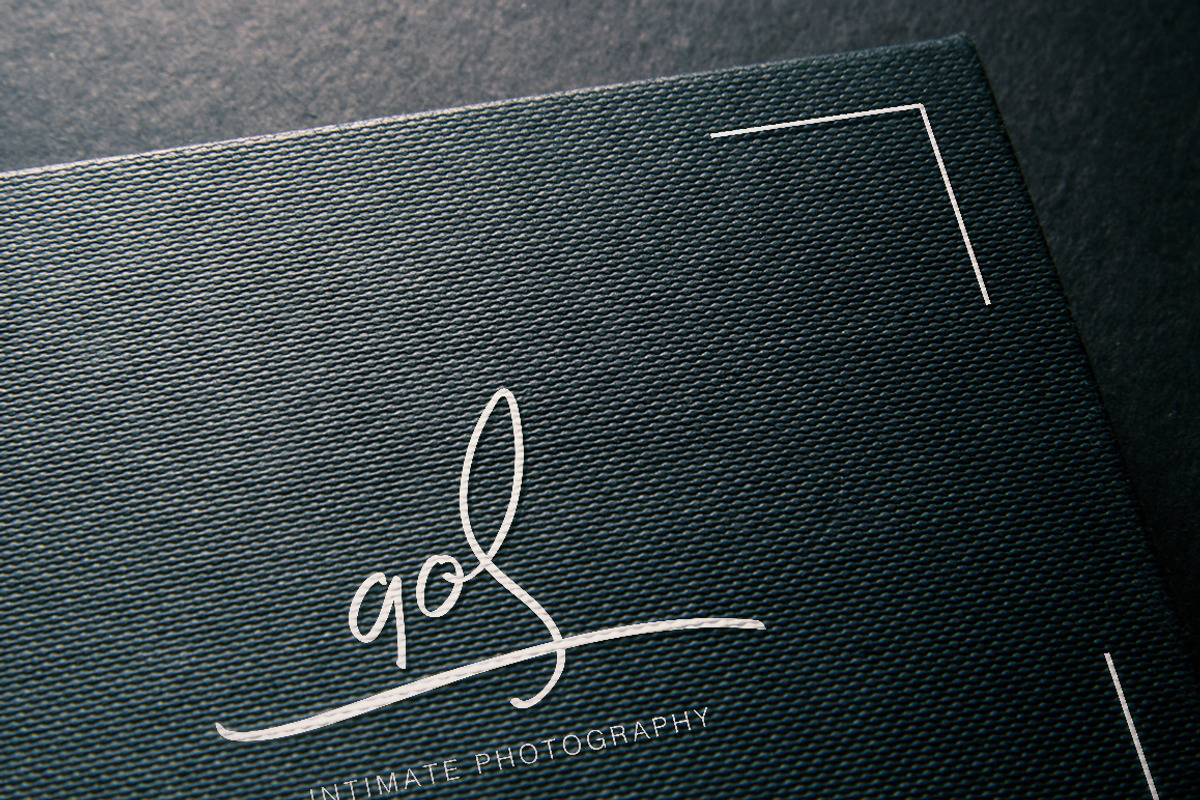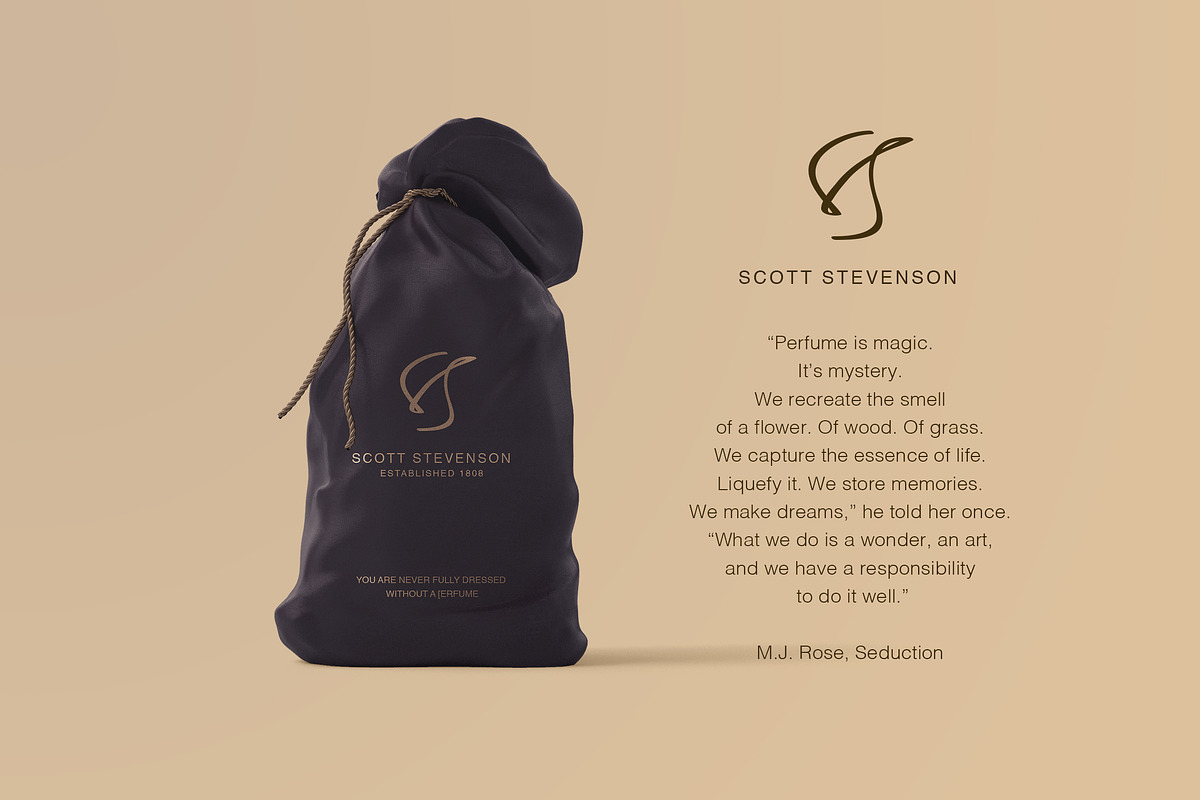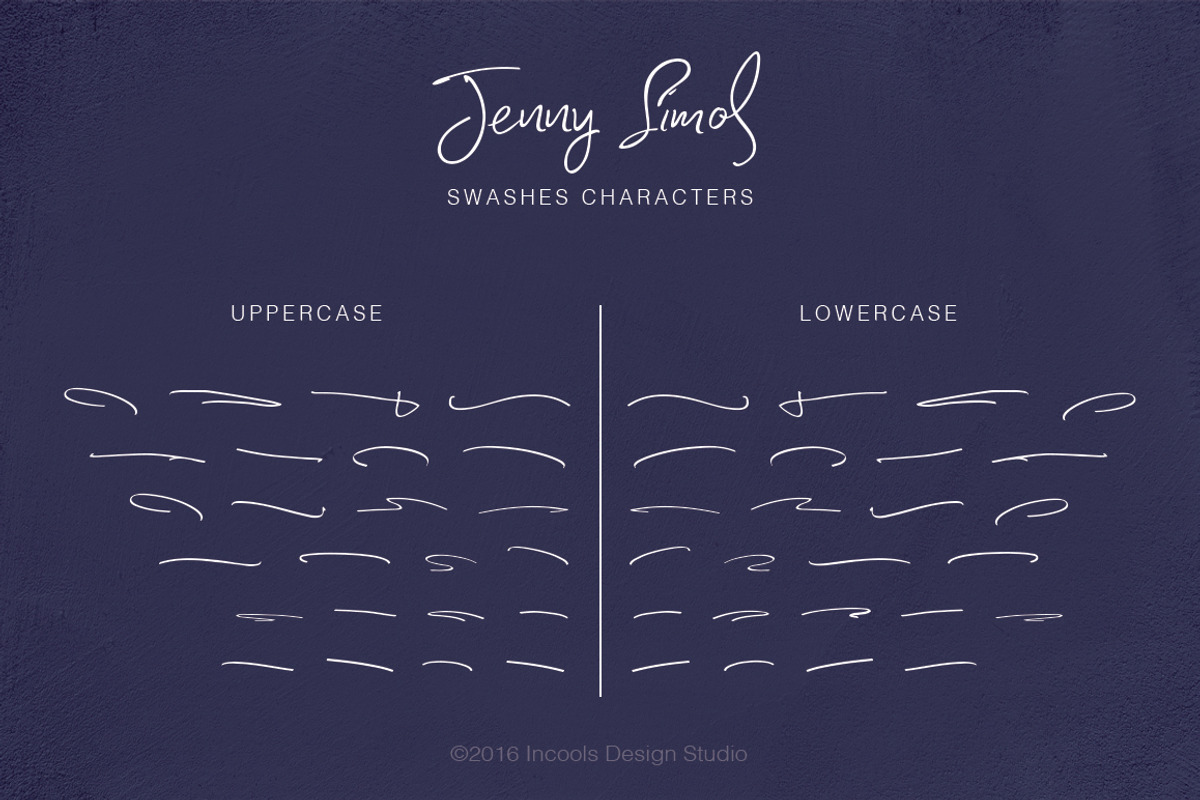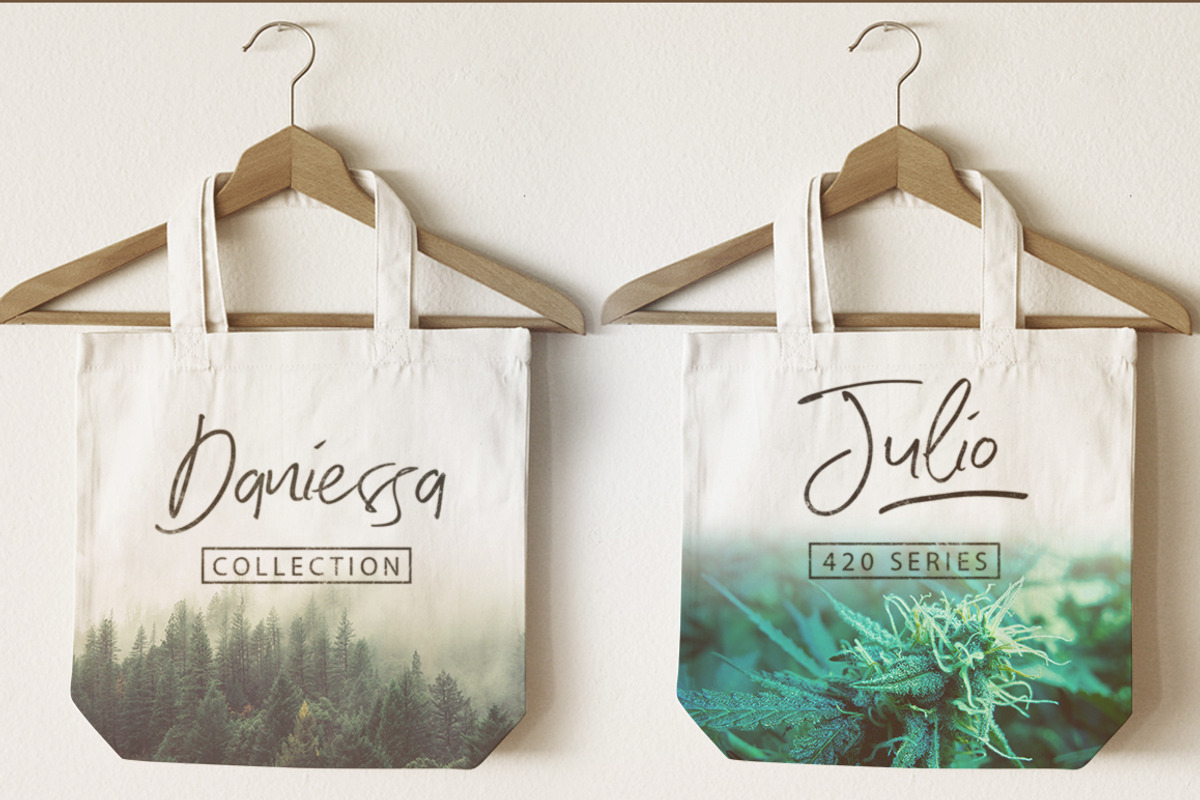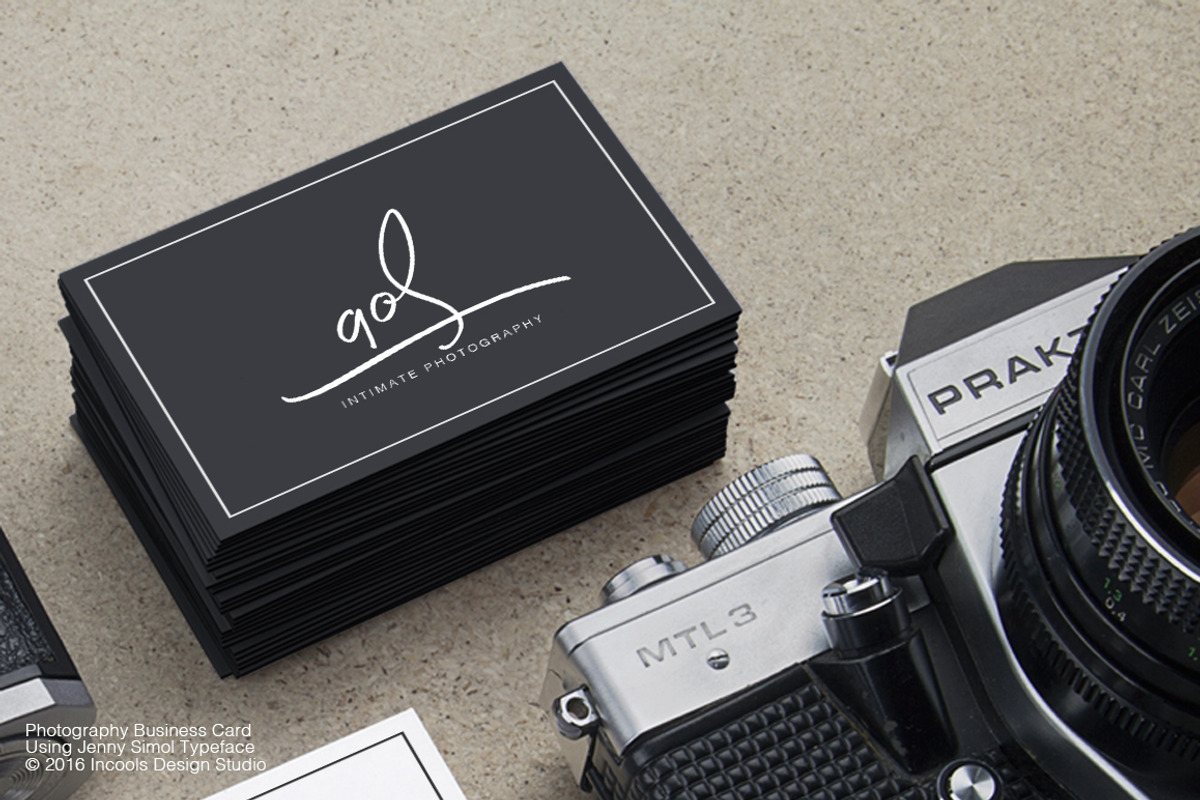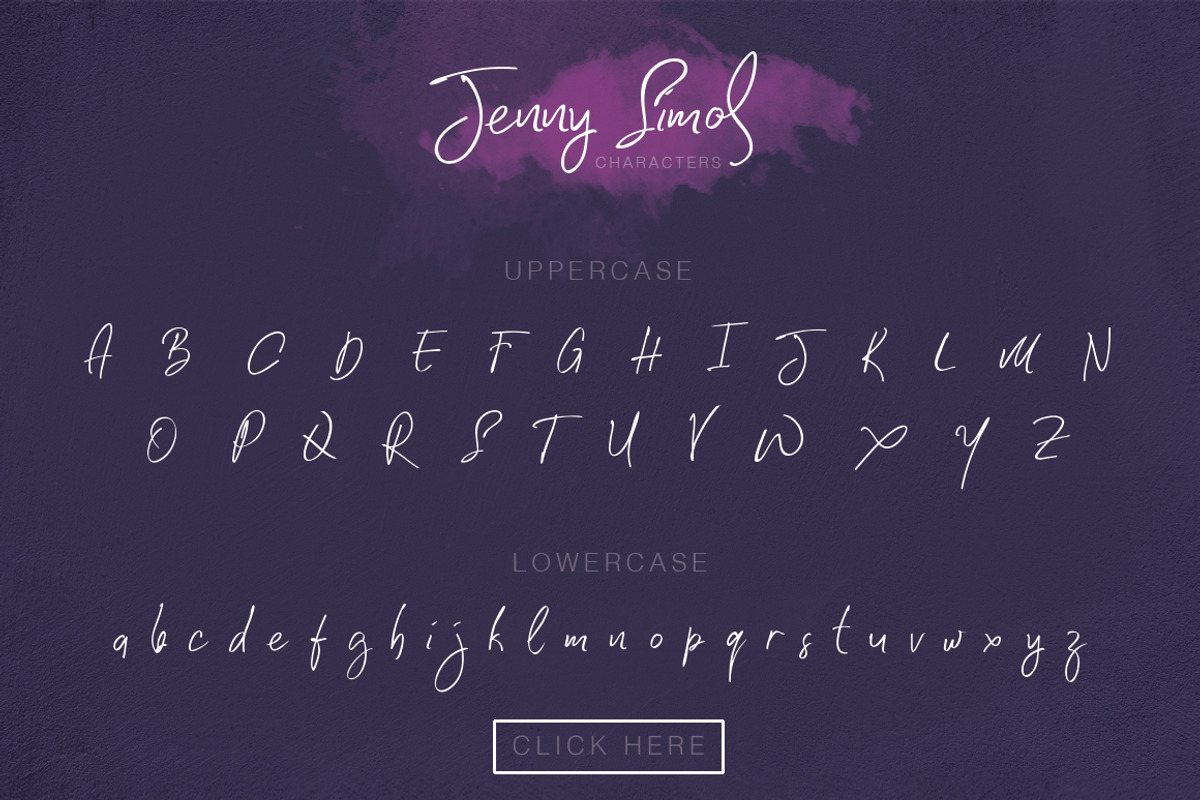
Jenny Simol
Jenny Simol - A Signature Typeface
a natural way of handdrawn with smooth style, elegant, the curve is flowing with the nature of handlettering. Jenny Simol carefully crafted to fit the need of branding. Double letter ligature from Jenny Simol typeface really suit for typologo, for elegant brand.